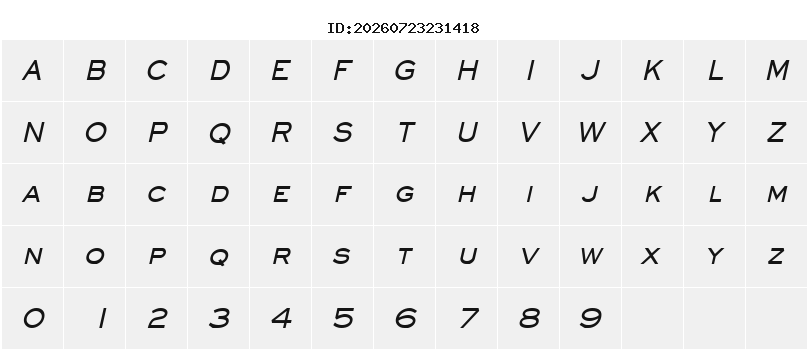
Eye glass Condensed Preview
• Font Name: Eye glass Condensed
• Full Font Name: Eye glass Condensed Bold Italic
About Eye glass Condensed.ttf
Eye glass Condensed.ttf is a modern, elegant sans-serif font designed for ultimate readability and visual harmony. Perfect for branding, headlines, web design, and print materials.